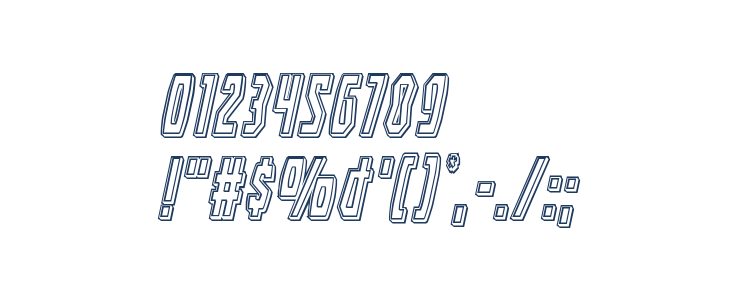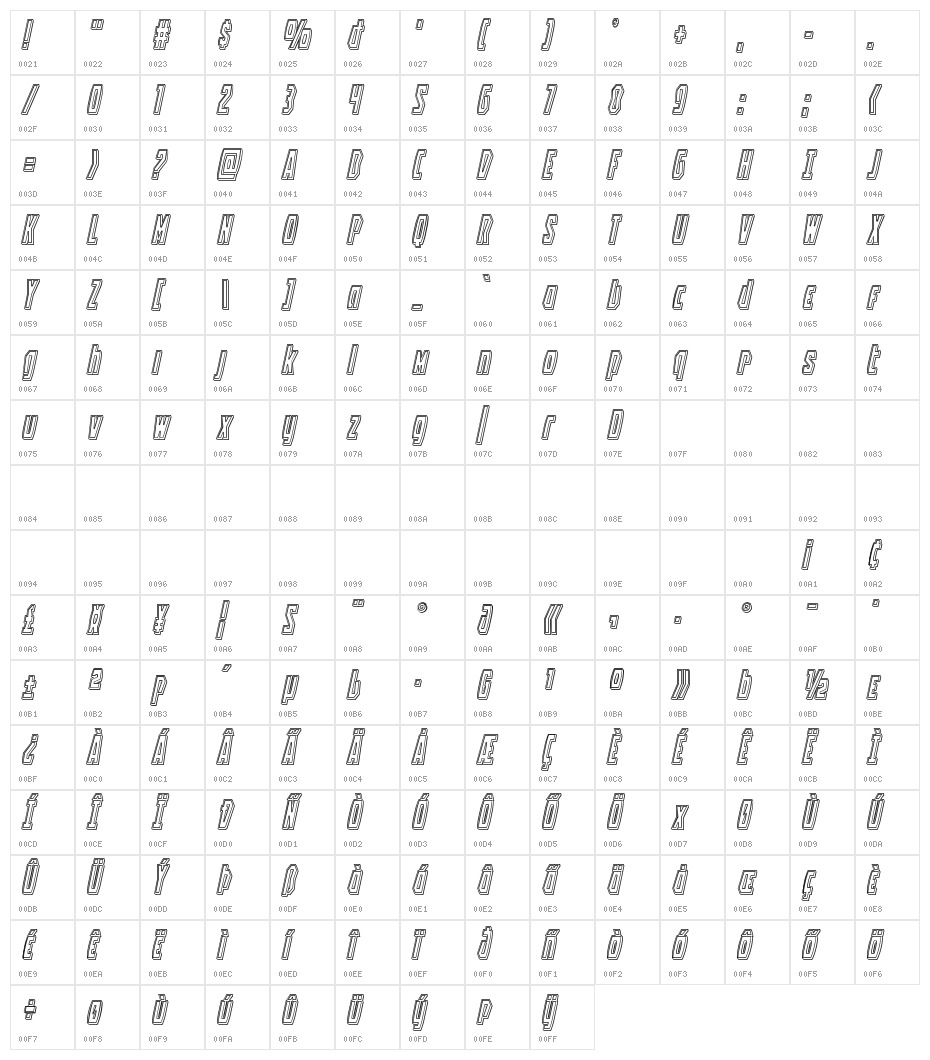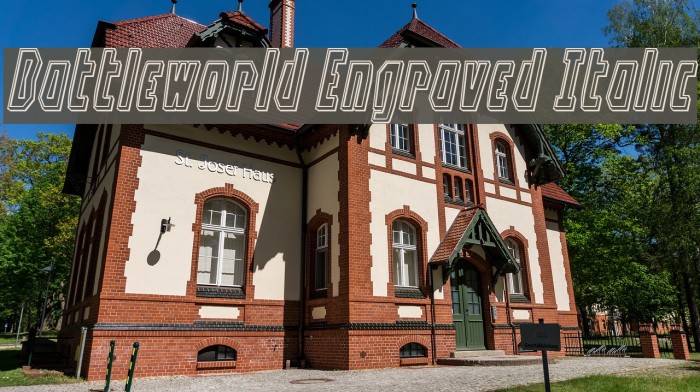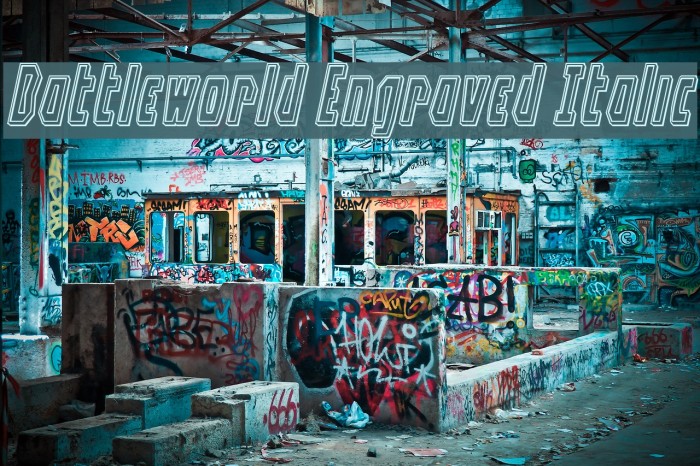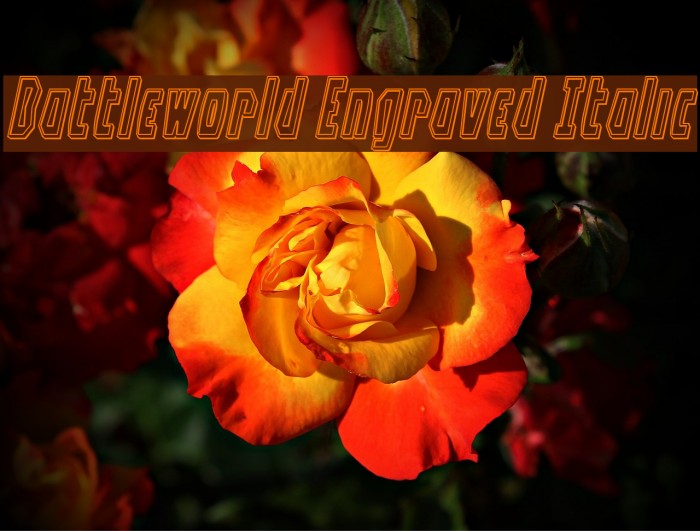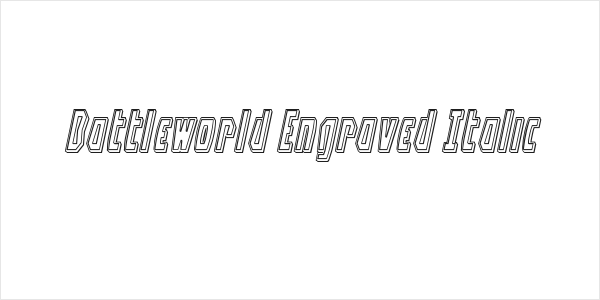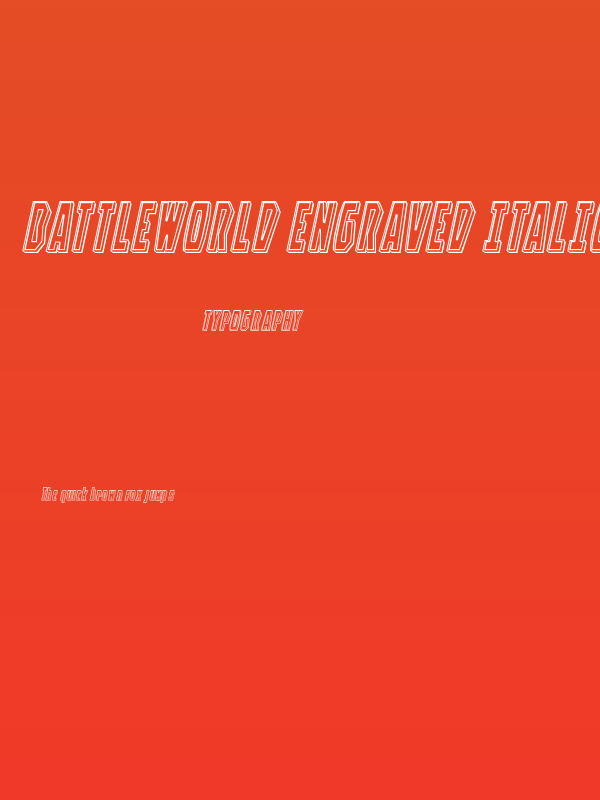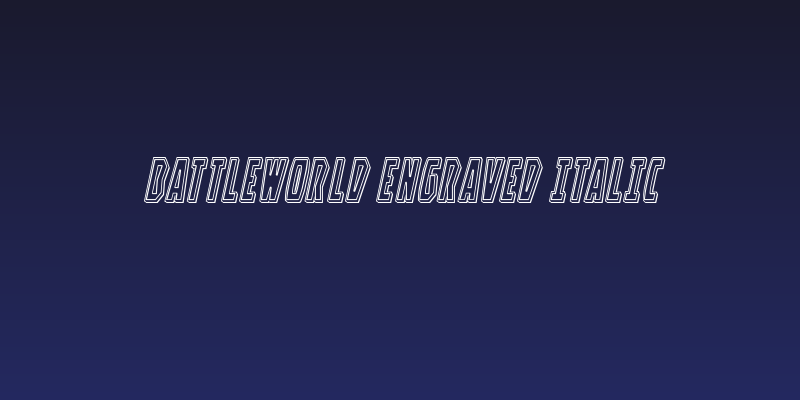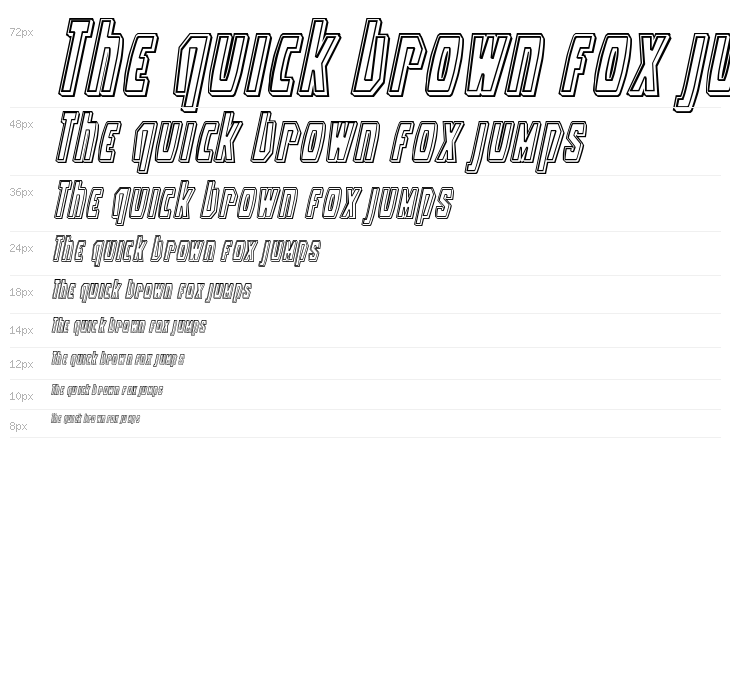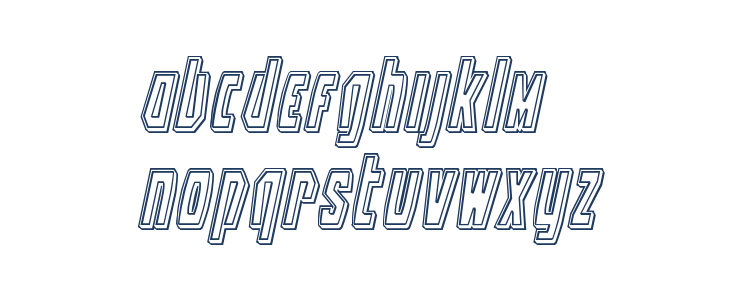
Battleworld Engraved Italic Font
Battleworld Engraved Italic Description
This font features a bold, engraved style with a distinct italic slant, giving it a dynamic and energetic appearance. The characters are outlined, creating a three-dimensional effect that adds depth and interest. The uppercase and lowercase letters maintain a consistent style, with sharp angles and clean lines. The numbers and special characters follow the same design principles, ensuring uniformity across all elements. This font's unique style makes it stand out, ideal for projects that require a strong visual impact.